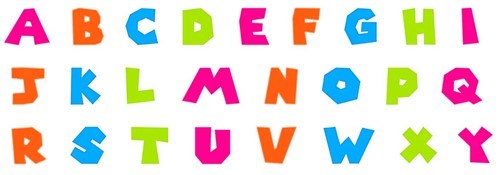
Unicorn Creatives is happy to present Super Mario Embrilliance machine embroidery font which has Playful block style machine embroidery font suitable for vibrant decorations on apparel and accessories. Ideal for use on jackets and caps. Available in BX font and Embrilliance formats. included. If you would like to view more embroidery fonts and alphabets please search our embroidery fonts page.